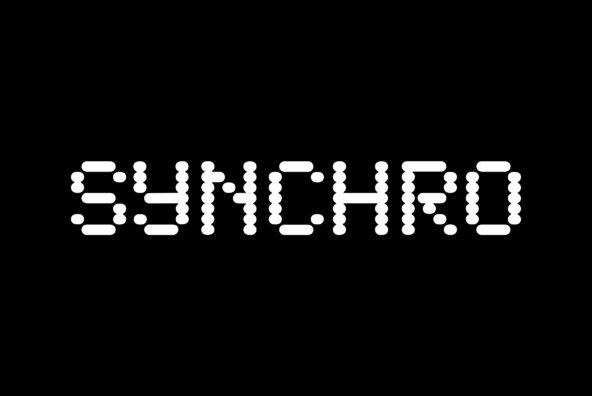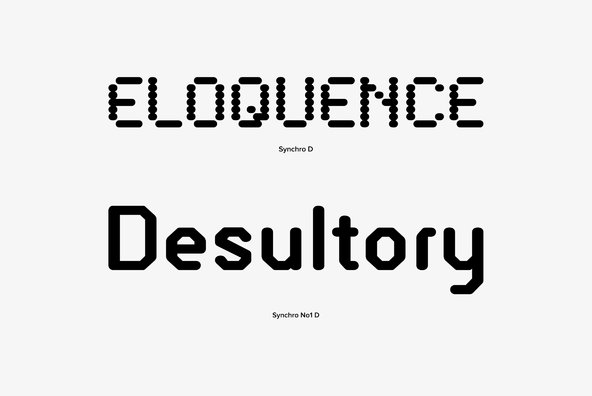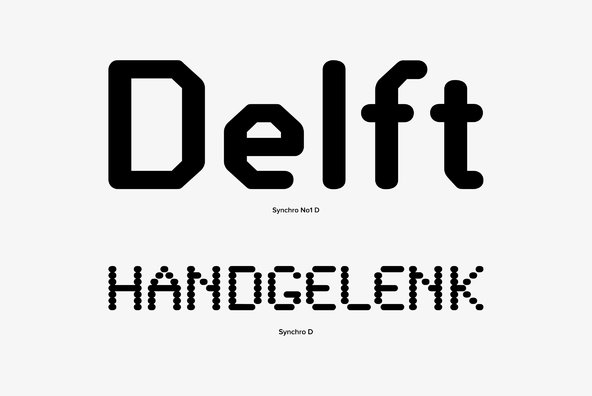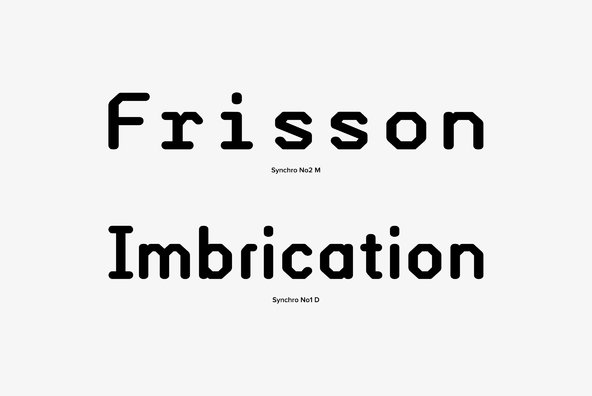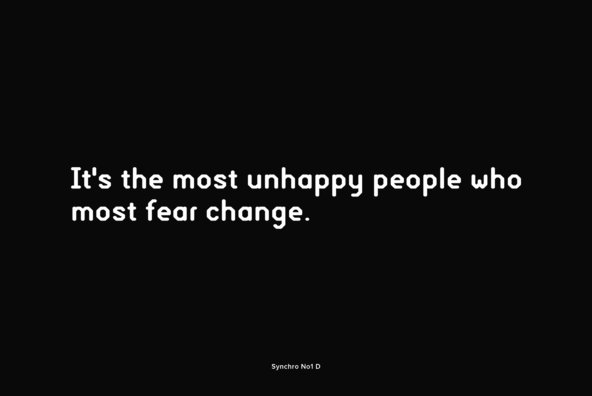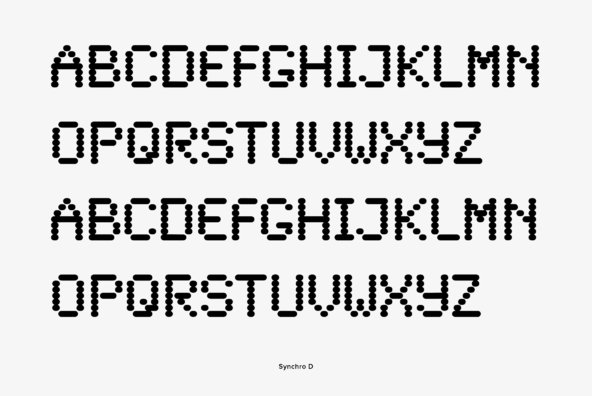
Synchro
Designed by Alan Birch in 1984 for Letraset, Synchro is a tech styled typeface that still holds a great retro flavor. Synchro works great in digital themed type settings, a unique alternative to using OCR.